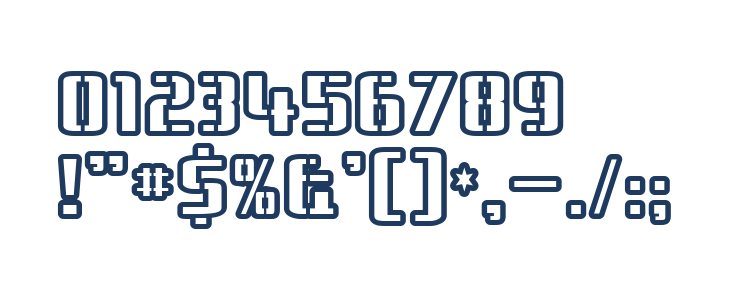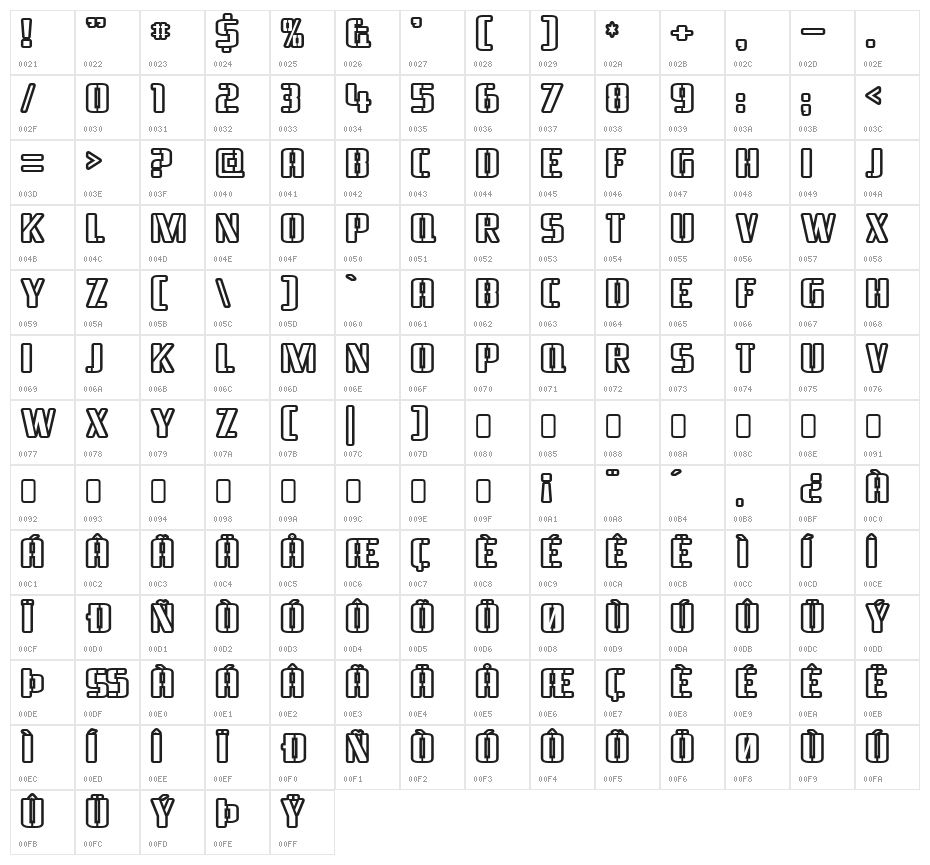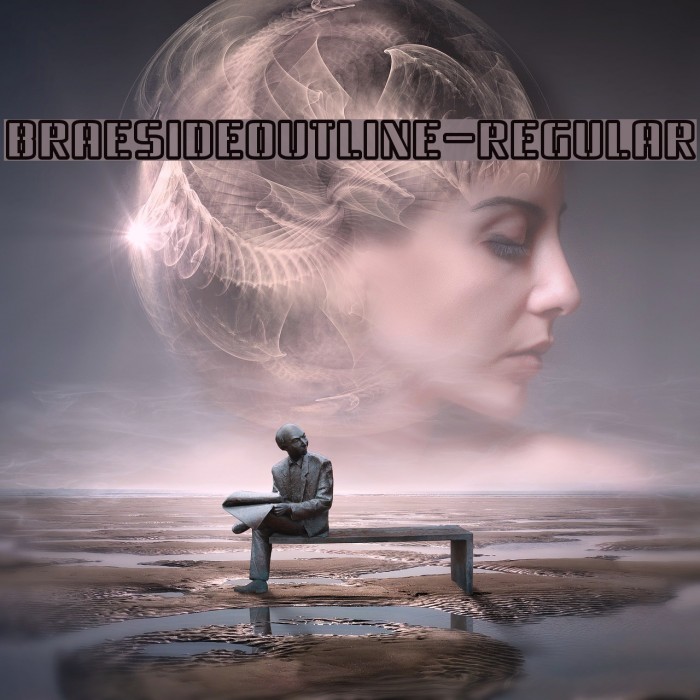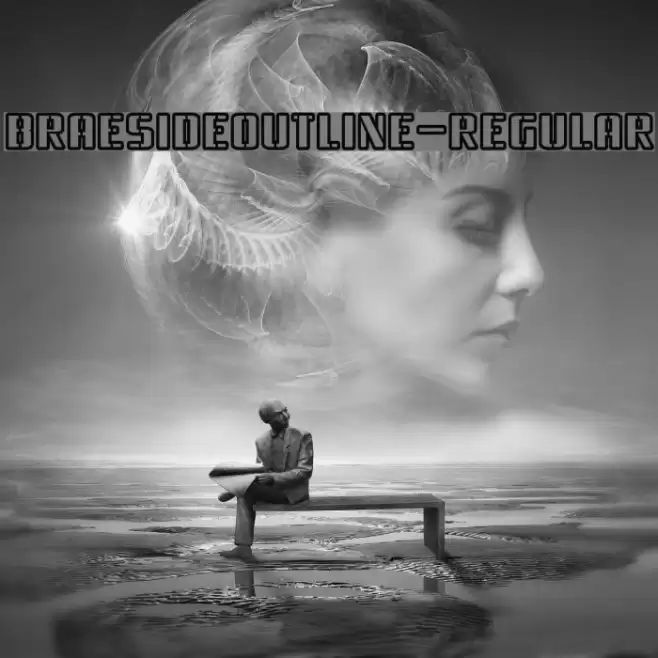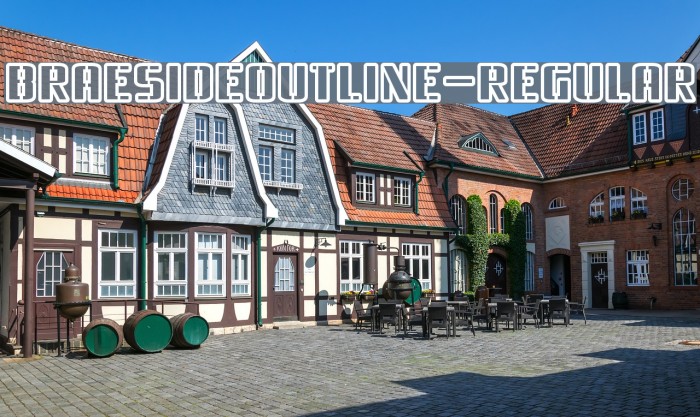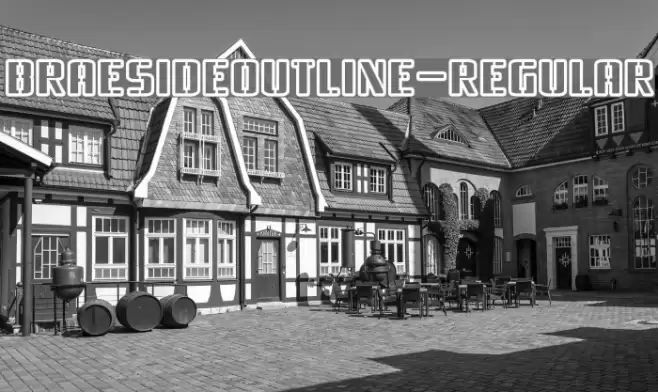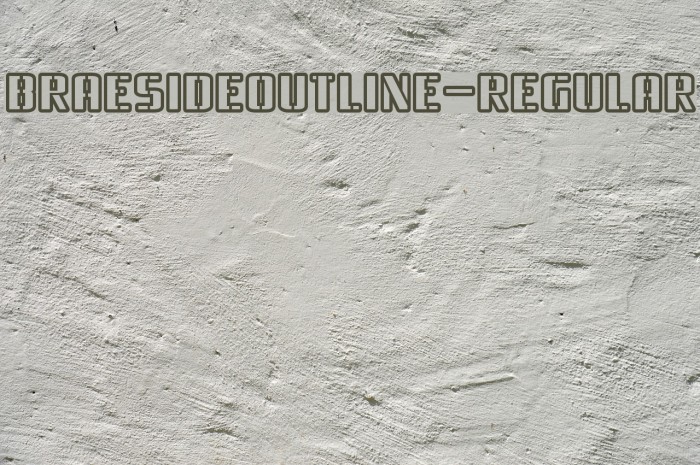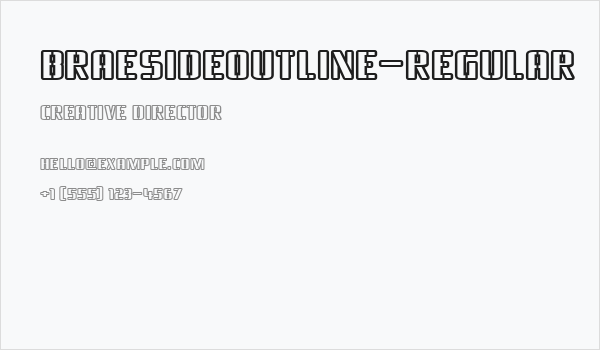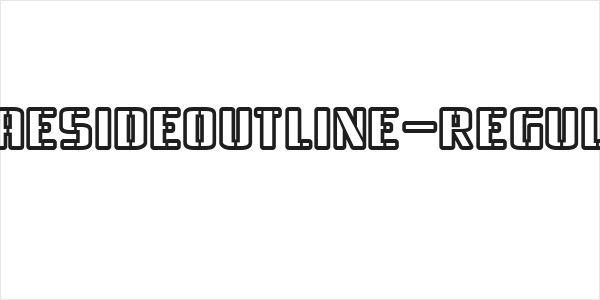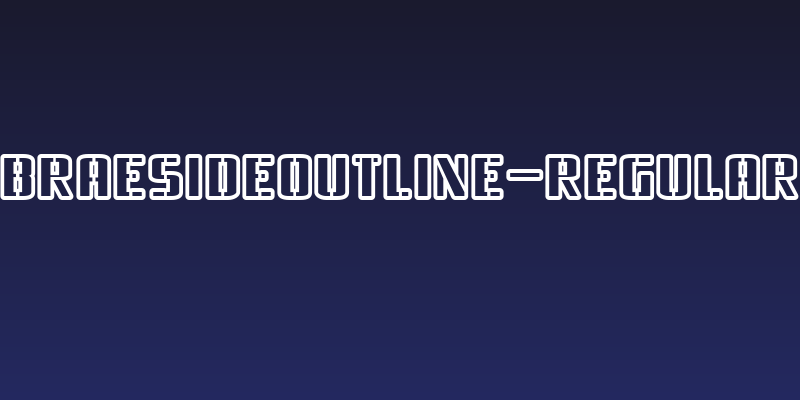
BraesideOutline-Regular Font
BraesideOutline-Regular Description
This font features a bold, outlined style that gives it a strong and impactful appearance. The characters are uppercase and lowercase letters, along with numbers and special symbols, all designed with a consistent outline that creates a hollow effect. The geometric shapes and clean lines contribute to a modern and industrial aesthetic, making it suitable for attention-grabbing designs. The uniform thickness of the outlines ensures readability while maintaining a distinctive look. This font is ideal for projects that require a bold statement or a contemporary feel.
| Proposed Projects | Ideal for posters, headlines, logos, and branding materials that require a bold and modern look. |